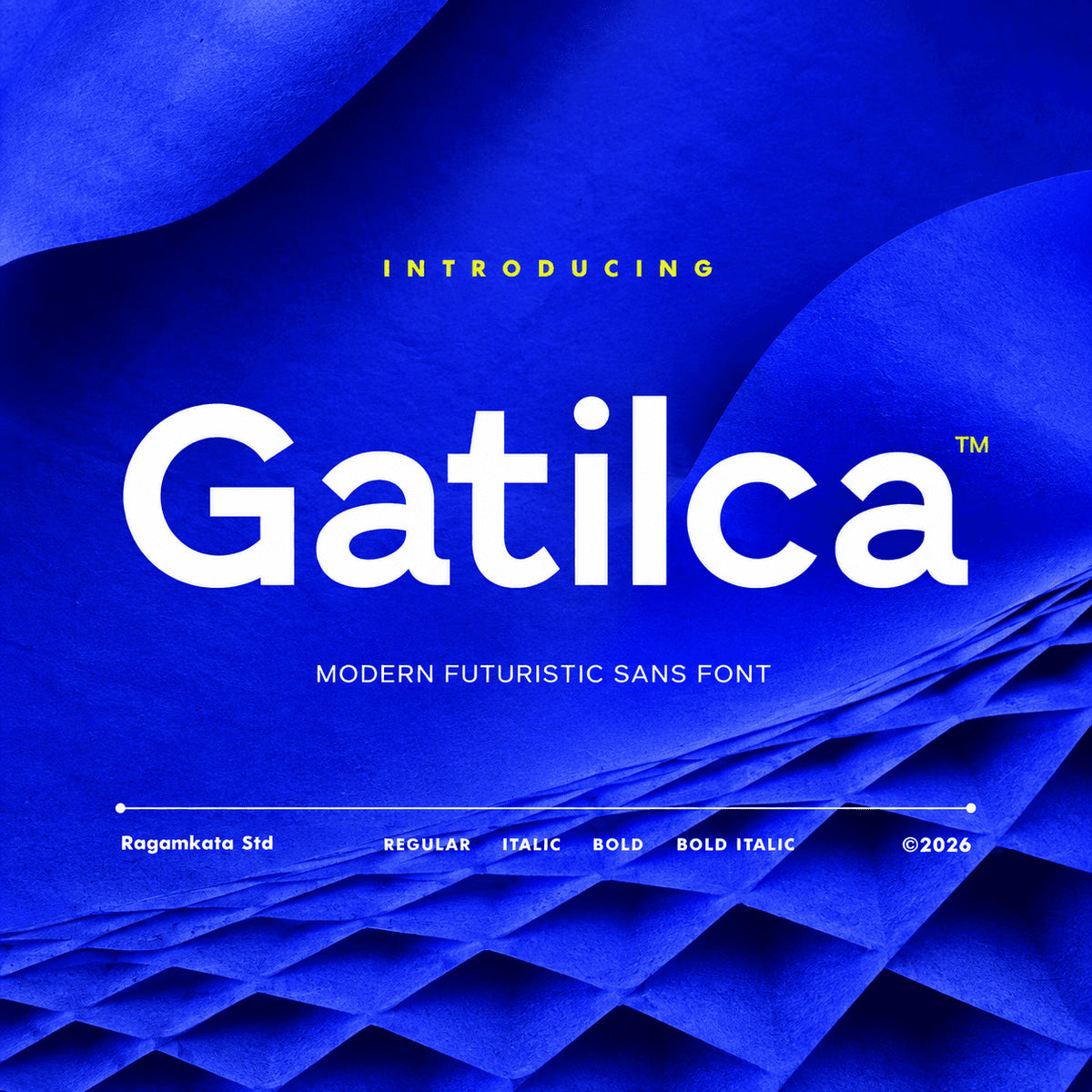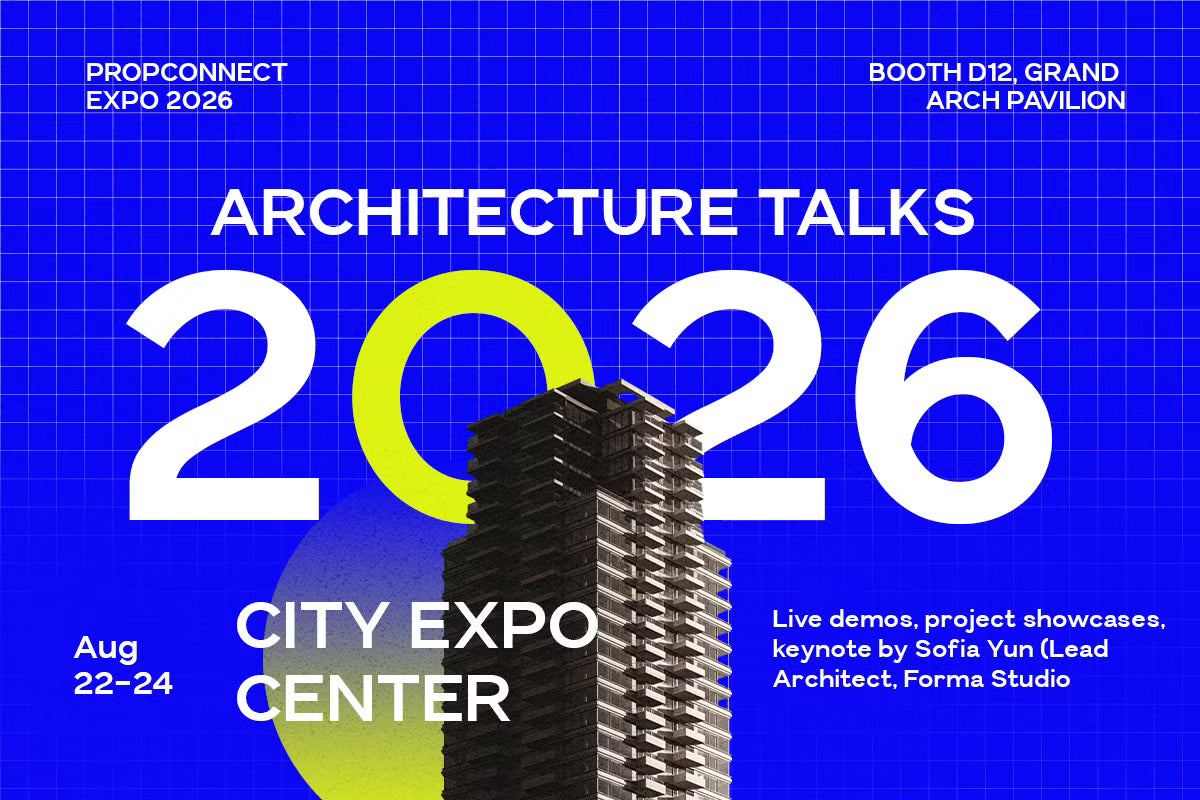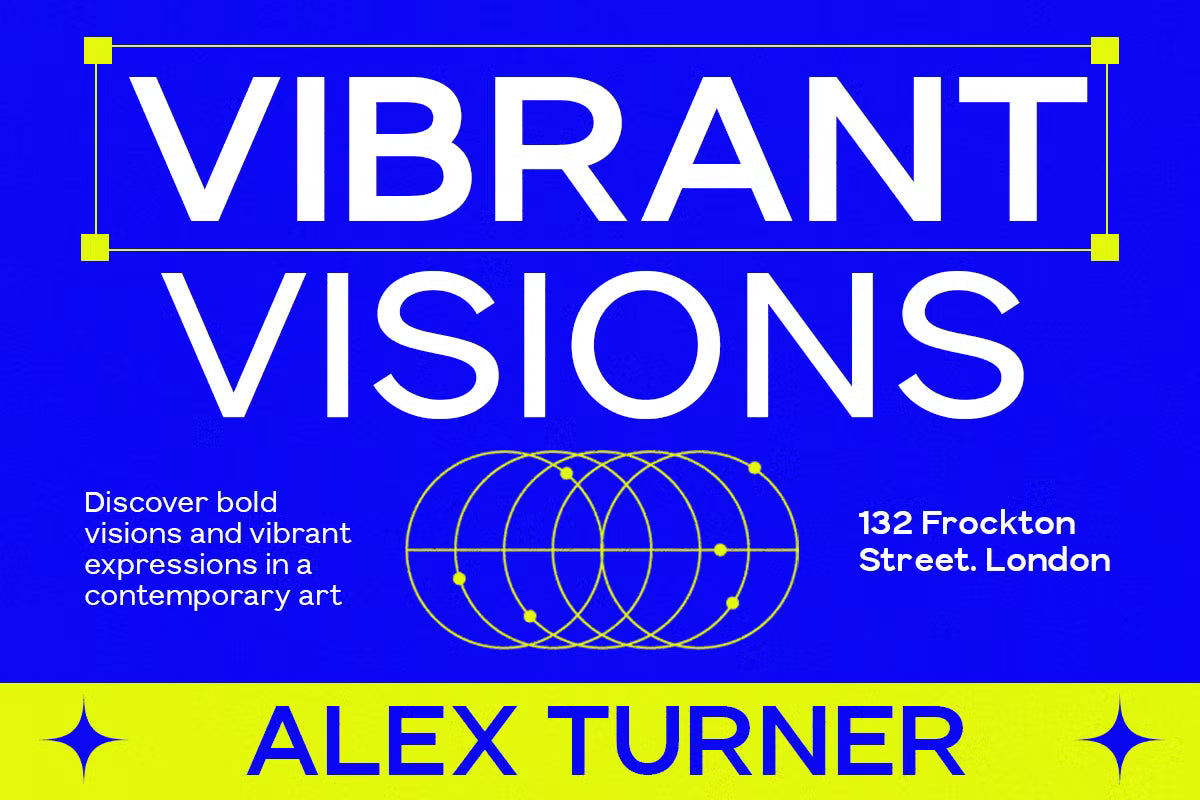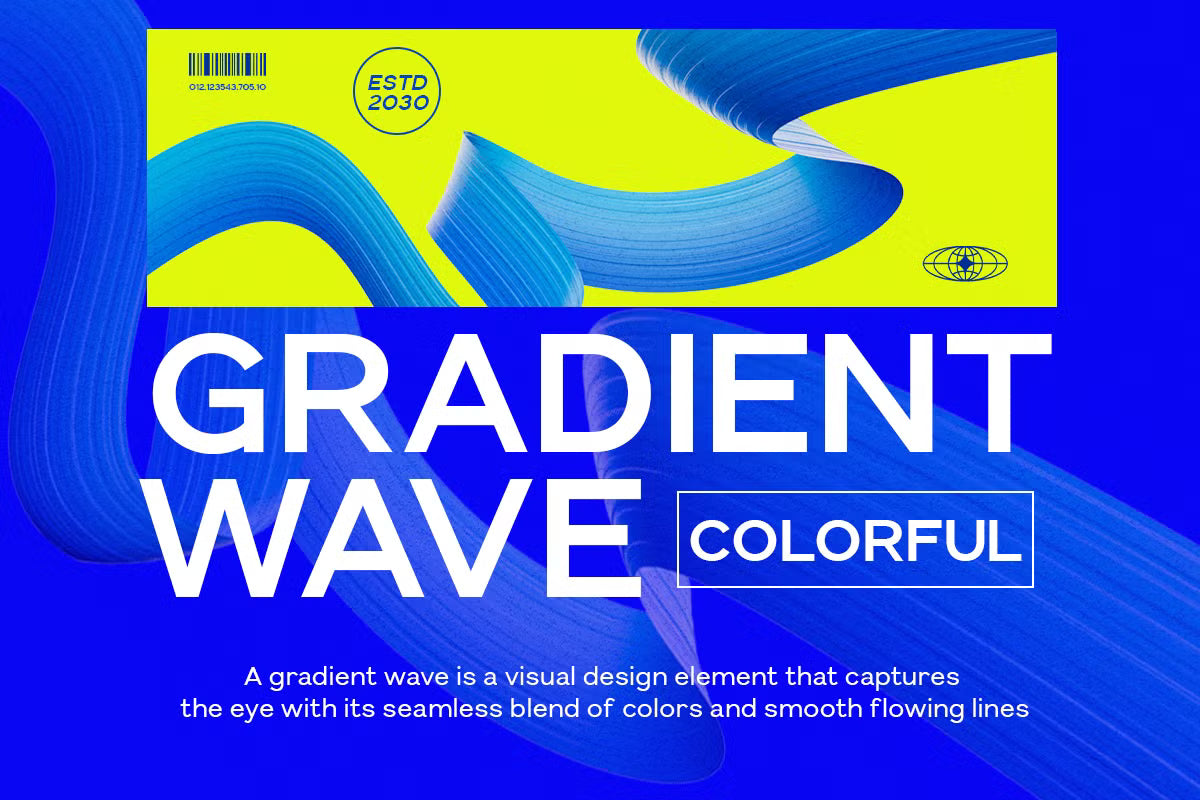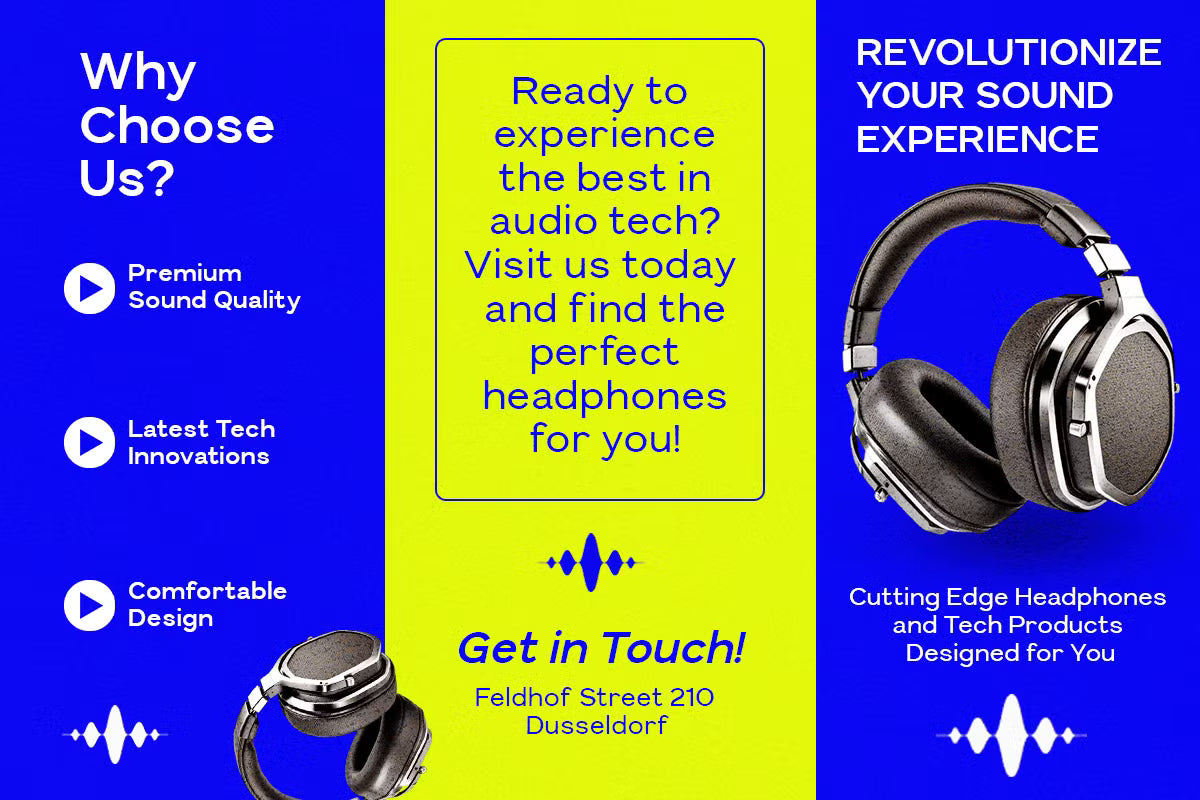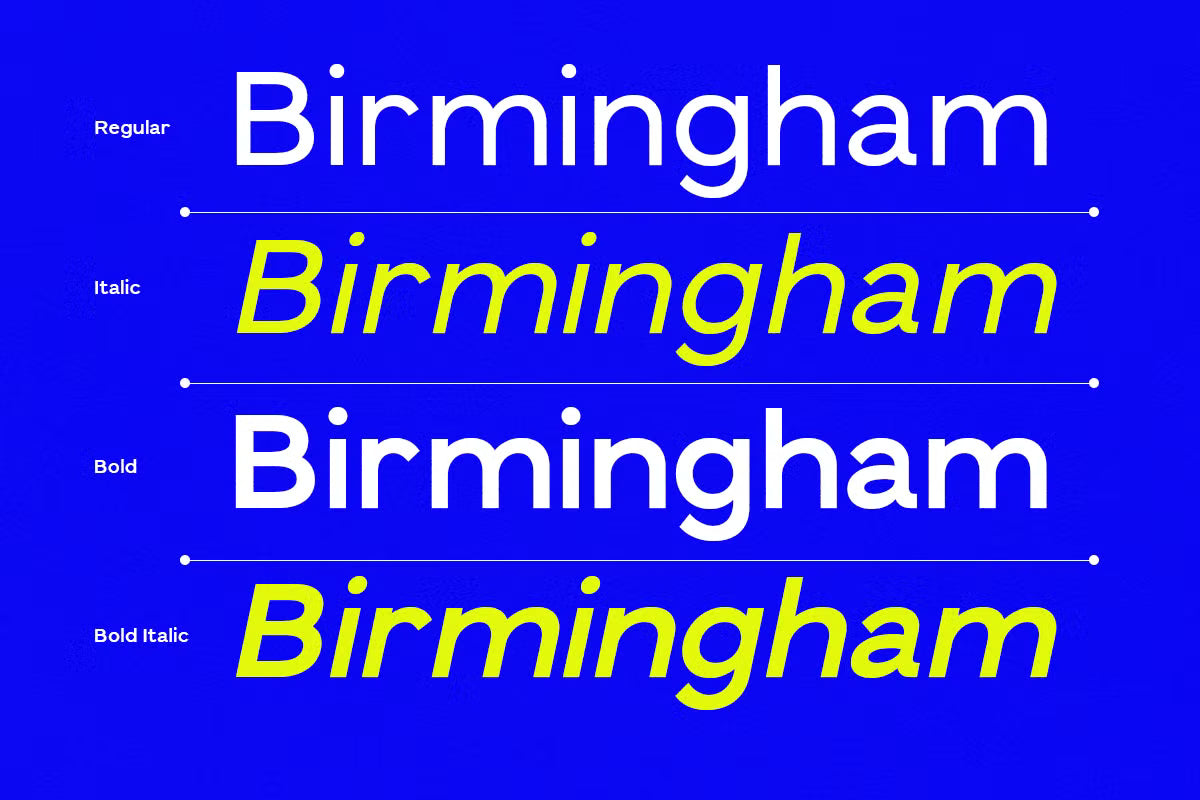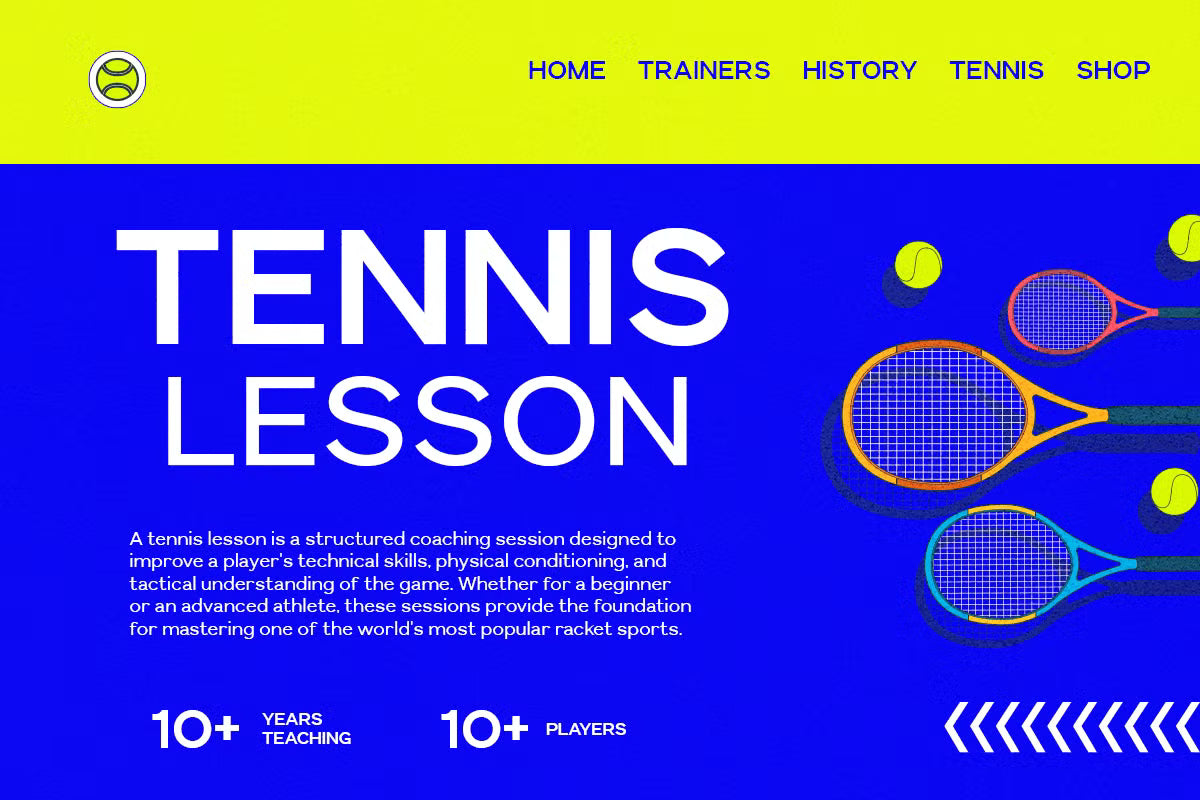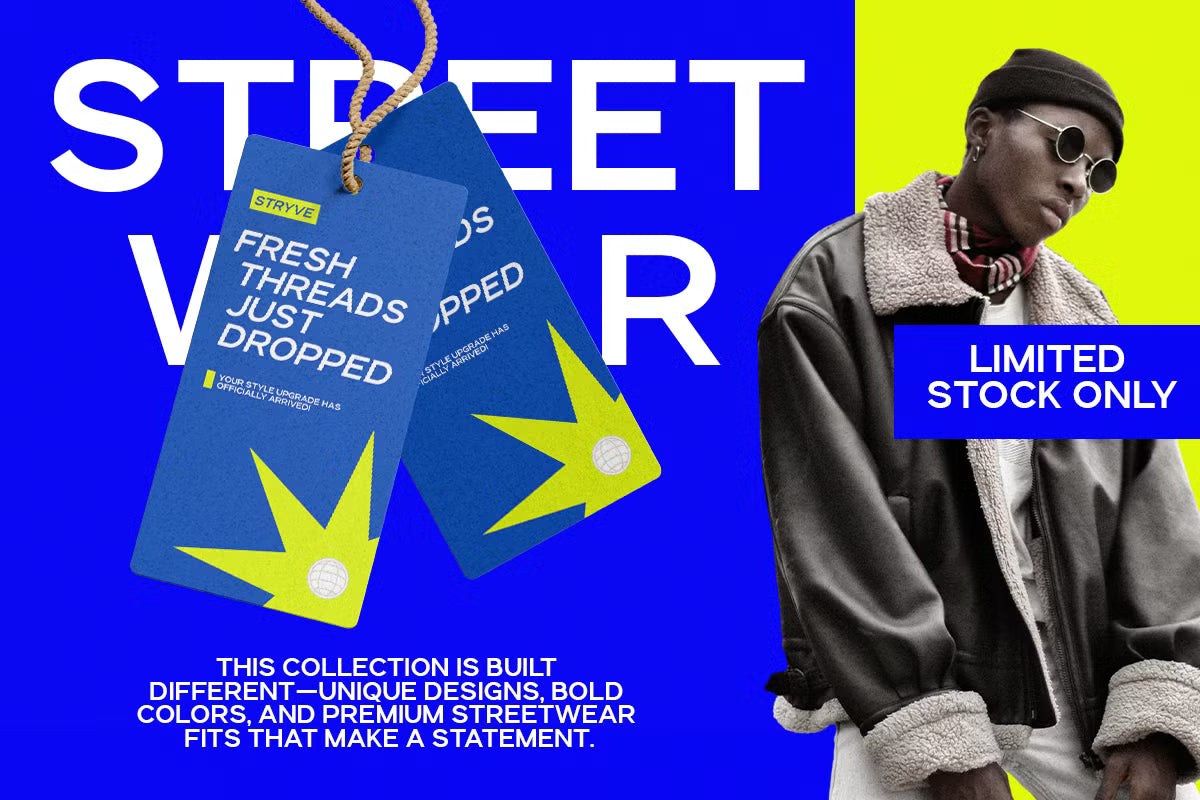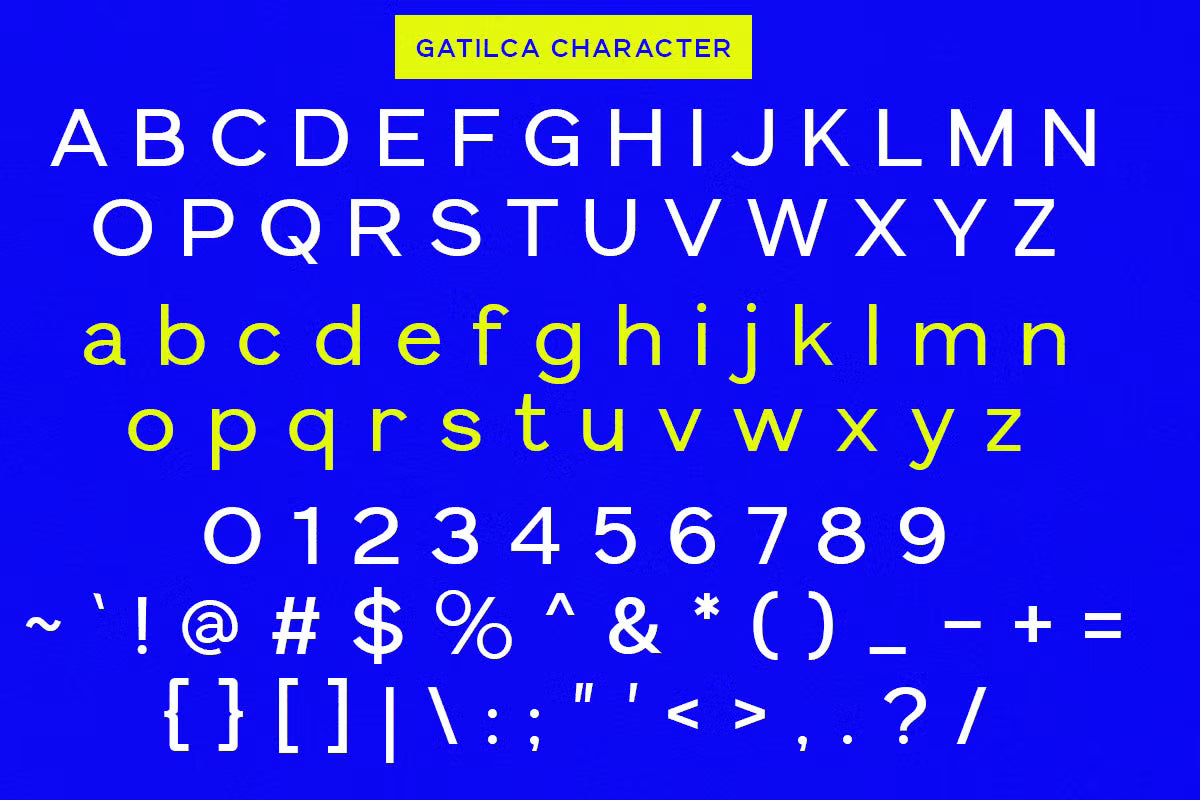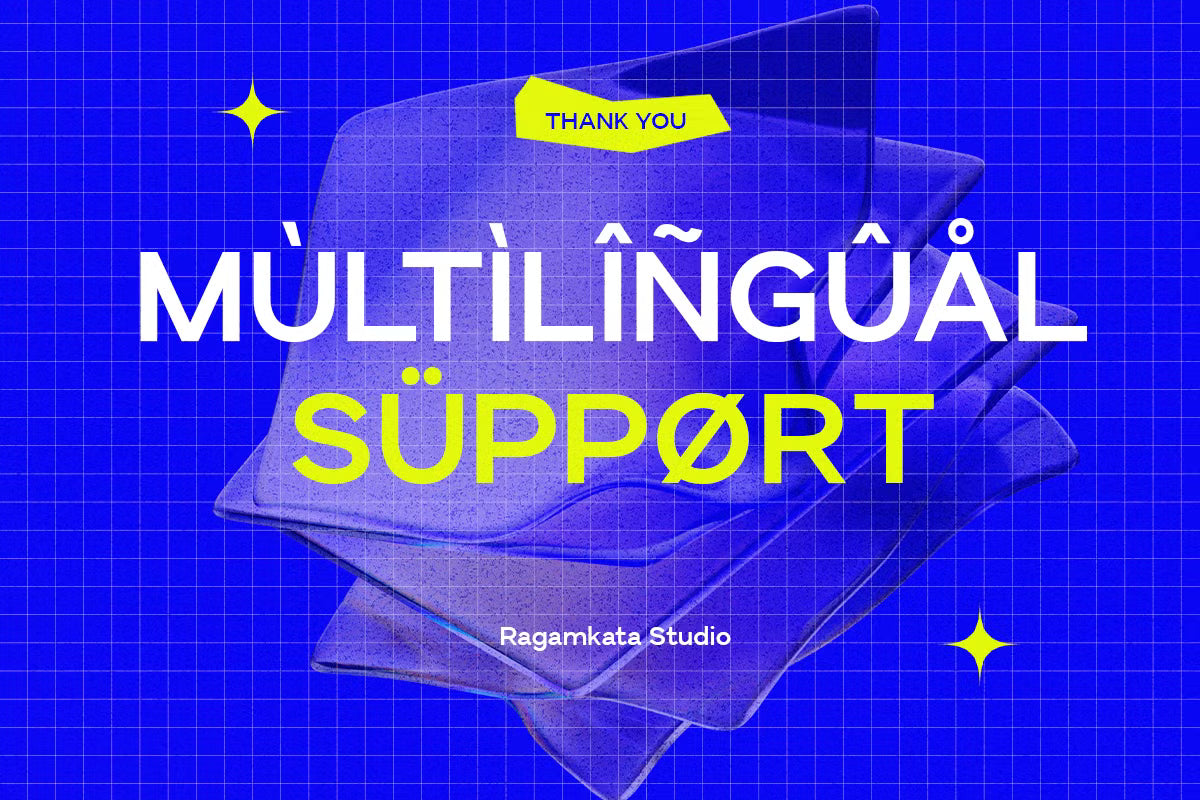
Gatilca - Futuristic Tech Sans Serif Font
Gatilca is a modern futuristic sans font designed to deliver a clean, innovative, and forward-thinking visual identity. With its sleek geometric structure, balanced proportions, and contemporary letterforms, Gatilca brings a strong modern aesthetic that feels both professional and cutting-edge. The minimalist construction makes the font highly versatile while maintaining a distinctive futuristic character.
Perfect for technology branding, startup identities, digital interfaces, gaming graphics, and modern advertising design, Gatilca provides a bold typographic presence that works beautifully across both digital and print media. Its clean shapes and modern rhythm make it ideal for logos, headlines, posters, UI design, and futuristic visual concepts.
Whether used for tech companies, innovation brands, modern websites, or digital product campaigns, Gatilca helps designers create sleek and impactful designs. The font combines simplicity and futuristic style to deliver typography that feels modern, powerful, and highly adaptable for contemporary design needs.
Gatilca is a geometric sans serif font featuring Regular, Bold, and Italic styles with uppercase, lowercase, numbers, symbols, punctuation, and multilingual character support. It is available in OTF, TTF, and WOFF formats.